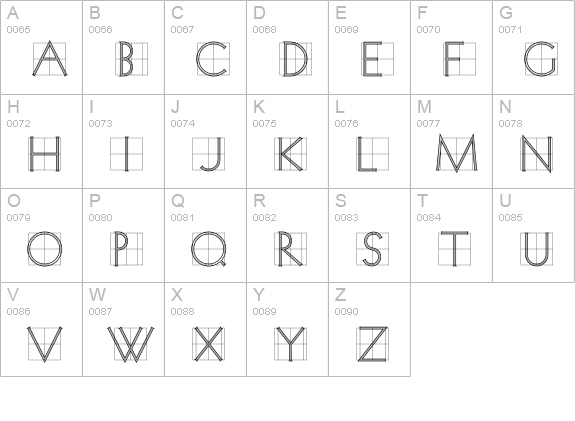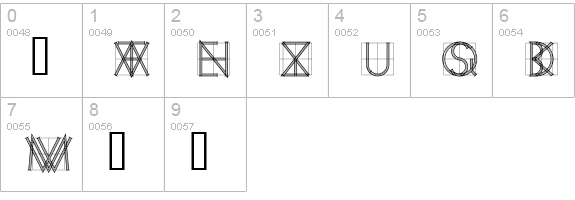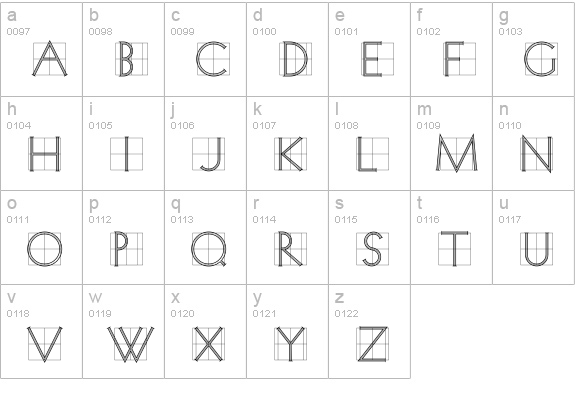
Koch Quadrat font is a modern and stylish typeface that exudes sophistication and elegance. Its clean lines and geometric shapes make it perfect for a wide range of design projects, from branding to editorial design. The font features a unique combination of sharp corners and rounded edges, creating a visually striking look that is sure to capture attention. What sets Koch Quadrat font apart is not just its design, but also the fact that it is available for free download at FontsMarket.com. This means that you can easily access and use this beautiful font in your projects without any cost. Whether you are a professional designer looking to elevate your work or just someone who appreciates good typography, Koch Quadrat font is a fantastic choice that will help you stand out from the crowd. Download it now and start creating stunning designs with this versatile and eye-catching font.